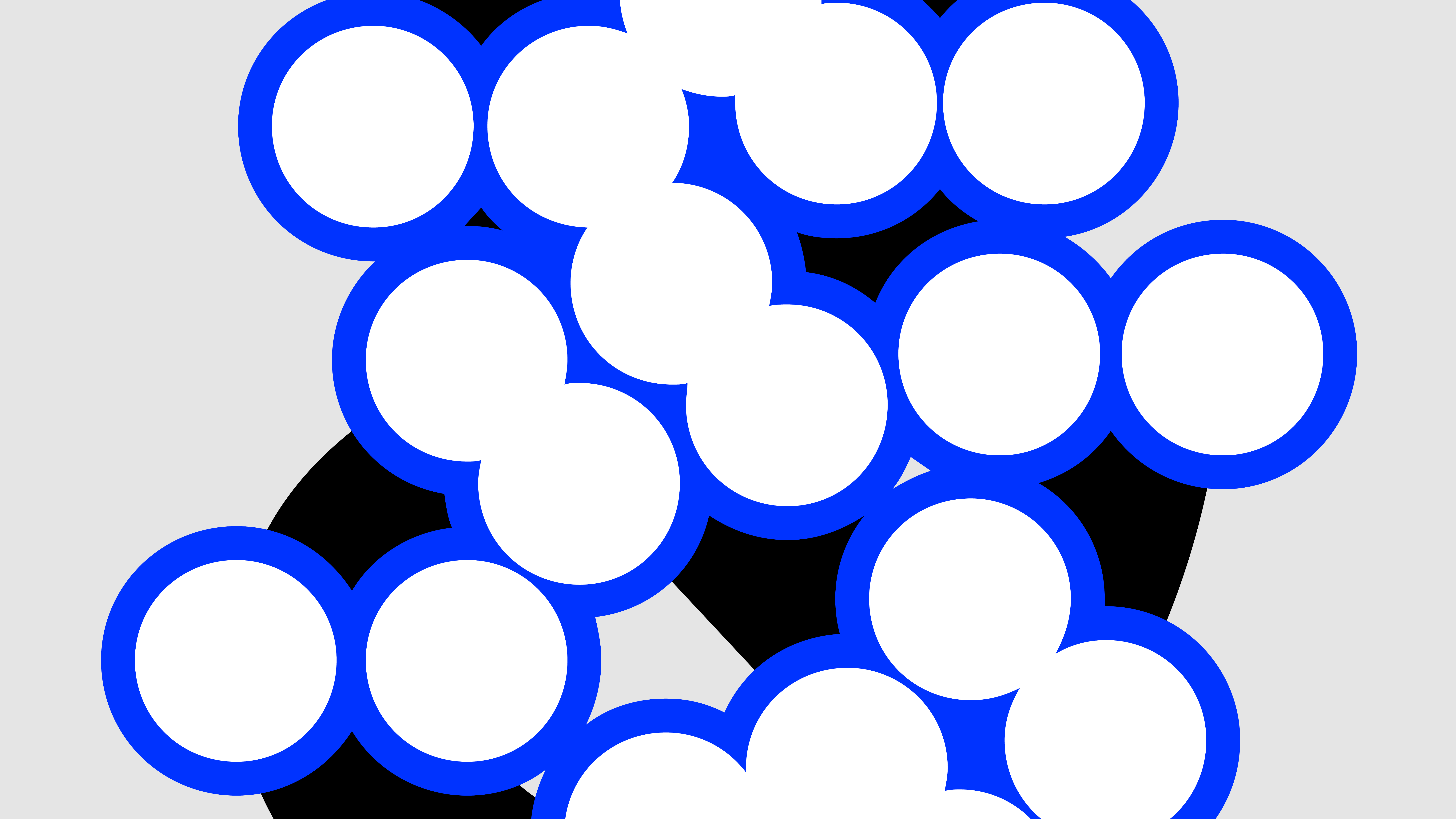
F37 Bezier
F37 Bezier exposes what is often hidden, championing the nodes that connect bézier curves as a design element themselves.
The F37 Bezier font family is available in three styles. Two styles, Node Large and Node Small, give user control over impact of the nodes. When large, the nodes dominate the letter forms, leaving only an elusive glimpse of the actual glyph behind them. When the nodes are small they appear as a smattering across the letter forms. The third style, is the non-nonsense underlying sans serif, perfect as a text style accompaniment to the two node styles.
F37 Bezier
Inspiration
F37 Bezier
Node Large
Node Small
Interview
Tell us about the inspiration behind your collaboration with F37®×. If it was an unused concept, what was the potential use case for it.
This font concept originated from my experience with design programs like Adobe XD. When a typeface is vectorized, each character's intricate bezier curves become apparent. As you zoom out, these curves expand, filling the space and altering the font's appearance. This phenomenon fascinated me, prompting me to ponder how we could translate it into a tangible font design.
When starting the process of creating your font, what typographic conventions did you look to break or experiment with? Or were there conventions of functionality you championed?
It was all based on observation and the talented type designers team of F37® made what we experience with the bezier being crazy to make a system of 3 weights and really playful but also functional
Now that your typeface has launched, what would be your dream project to use your F37® typeface on?
I would love to use in a book cover layout.
What have you learnt through developing and creating your own typeface(s) with our F37® type designers?
It is all about collaborating. What I saw and how it became was much more enriching since we worked together to shape this type from a simple and weird idea - love weird.
How would you describe your typeface in three words?
Dotty, Fun, Mutant